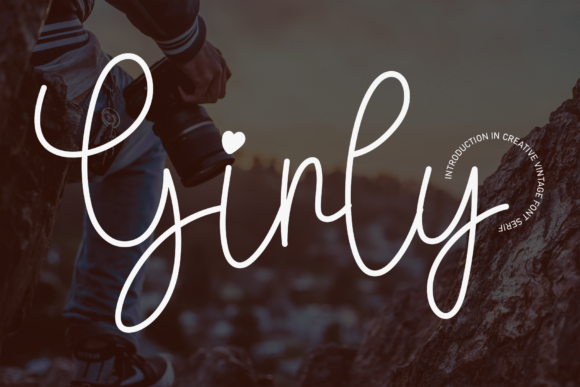
Girly Font: The Delicate and Elegant Handwritten Font for Your Designs
Are you a designer or crafter looking for a font that exudes elegance and sophistication? Look no further than the Girly font, a delicate and elegant handwritten font that is sure to capture your heart. With its distinct and well-balanced letters, Girly is a masterpiece that can elevate your designs to the next level.
What is Girly Font?
Girly font is a type of handwritten font that is characterized by its delicate and elegant strokes. It is a carefully crafted font that features well-balanced letters, making it perfect for a variety of design applications. Whether you’re creating a logo, a poster, or a social media graphic, Girly font is an excellent choice.
Key Features of Girly Font
- Delicate and Elegant Strokes: Girly font features delicate and elegant strokes that give it a sophisticated and refined look.
- Distinct and Well-Balanced Letters: Each letter in the Girly font is carefully crafted to ensure that it is distinct and well-balanced, making it easy to read and understand.
- Versatile Style: Girly font is incredibly versatile, making it suitable for a wide range of design applications, from formal to informal.
Why Use Girly Font?
There are many reasons why you should consider using Girly font in your designs. Here are a few:
- Adds Elegance and Sophistication: Girly font can add a touch of elegance and sophistication to your designs, making them stand out from the crowd.
- Perfect for Feminine Designs: Girly font is perfect for designs that require a feminine touch, such as wedding invitations, beauty blogs, and fashion magazines.
- Easy to Read: Despite its delicate strokes, Girly font is easy to read, making it suitable for body text and headings.
How to Use Girly Font?
Using Girly font is easy. Here are a few tips to get you started:
- Pair it with Other Fonts: Girly font pairs well with other fonts, such as sans-serif fonts, to create a beautiful contrast.
- Use it for Headings and Titles: Girly font is perfect for headings and titles, where you want to make a statement.
- Experiment with Colors and Textures: Girly font looks great in a variety of colors and textures, so don’t be afraid to experiment and find the perfect combination for your design.
Design Ideas Using Girly Font
- Wedding Invitations: Use Girly font to create beautiful wedding invitations that exude elegance and sophistication.
- Social Media Graphics: Use Girly font to create eye-catching social media graphics that showcase your brand’s personality.
- Fashion Magazine: Use Girly font to create a stunning fashion magazine that showcases the latest trends and styles.
In conclusion, Girly font is a delicate and elegant handwritten font that is perfect for designers and crafters looking to add a touch of sophistication to their designs. With its distinct and well-balanced letters, Girly font is a masterpiece that can elevate your designs to the next level. Whether you’re creating a logo, a poster, or a social media graphic, Girly font is an excellent choice.